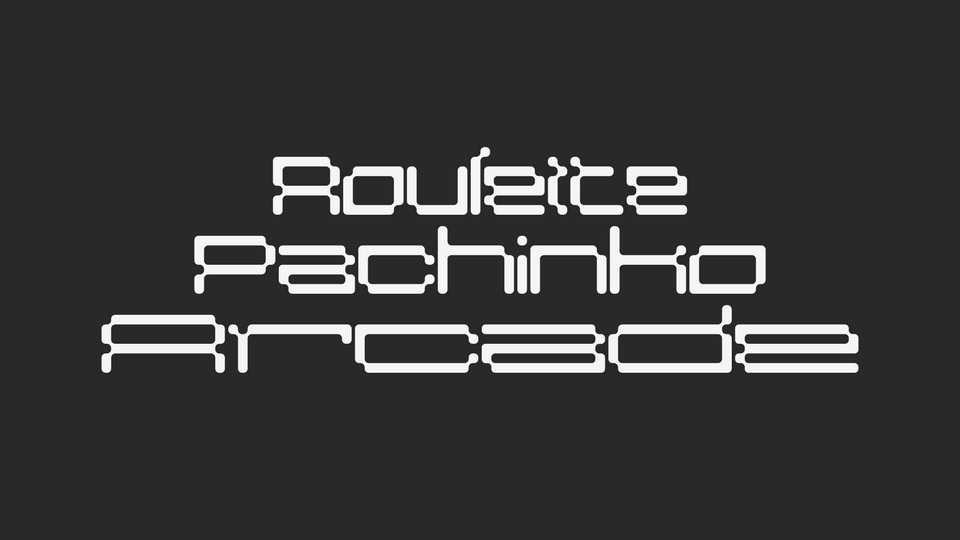
Download Flux font, a versatile display typeface that takes inspiration from classic pixel fonts, merging retro digital aesthetics with smooth, rounded corners.
Designer: Ralph Bruens